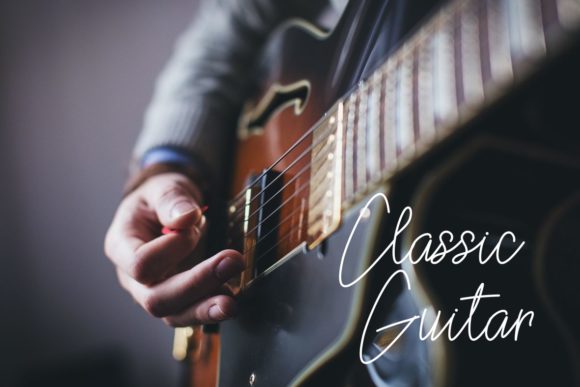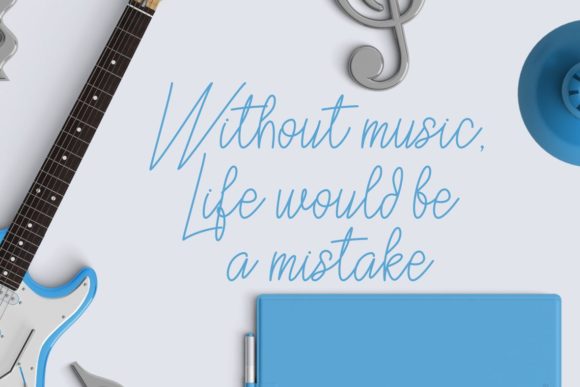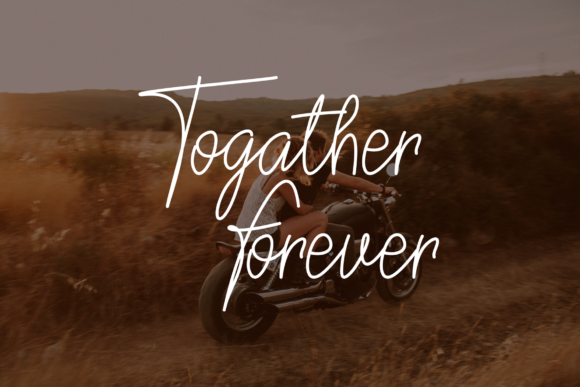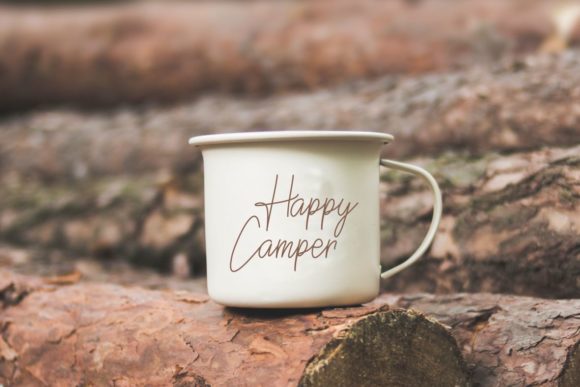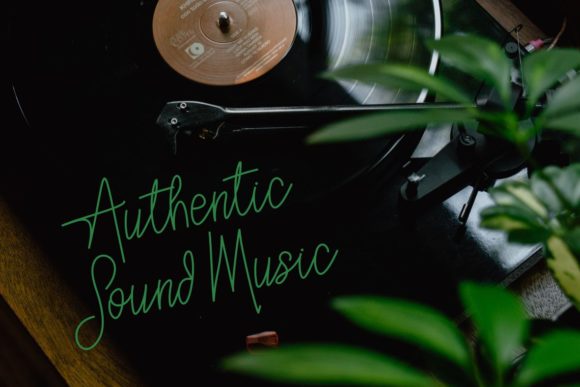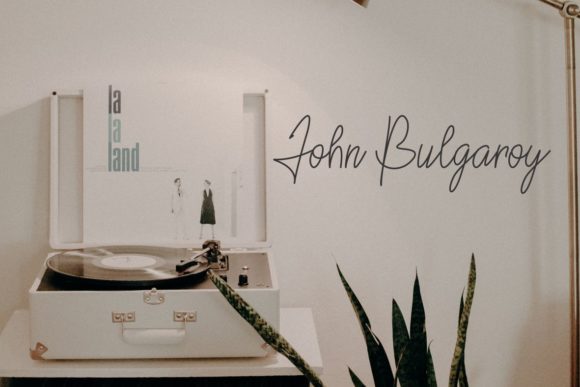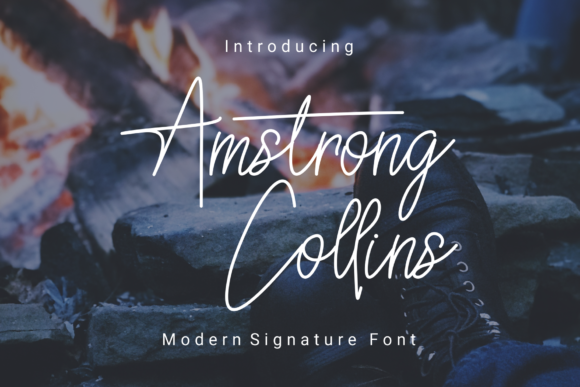
Introducing Armstrong Collins Font: The Perfect Handwritten Touch for Your Designs
Are you a designer or crafter looking for a font that adds a touch of elegance and sophistication to your work? Look no further than the Armstrong Collins font. This beautiful, flowing, and delicate handwritten font is perfect for a variety of design projects, from wedding invitations and thank you cards to quotes, greeting cards, logos, and business cards.
The Characteristics of Armstrong Collins Font
Armstrong Collins font is a unique and stylish handwritten font that boasts a range of characteristics that make it perfect for designs that require a personal touch. Some of its key features include:
- Flowing and delicate: The font has a smooth, flowing quality that gives it a delicate and refined appearance.
- Handwritten feel: The font has a distinctly handwritten feel, making it perfect for designs that require a personal touch.
- Elegant and sophisticated: The font’s elegant and sophisticated appearance makes it perfect for designs that require a high level of refinement.
Uses for Armstrong Collins Font
Armstrong Collins font is a versatile font that can be used for a wide range of design projects. Some of the most popular uses for this font include:
- Wedding invitations: The font’s elegant and sophisticated appearance makes it perfect for wedding invitations and other wedding-related design projects.
- Thank you cards: The font’s flowing and delicate quality makes it perfect for thank you cards and other greeting cards.
- Quotes: The font’s handwritten feel makes it perfect for quotes and other inspirational designs.
- Greeting cards: The font’s elegant and sophisticated appearance makes it perfect for greeting cards of all kinds.
- Logos: The font’s unique and stylish appearance makes it perfect for logos and other branding design projects.
- Business cards: The font’s professional and refined appearance makes it perfect for business cards and other business-related design projects.
Why Choose Armstrong Collins Font?
There are many reasons why designers and crafters choose Armstrong Collins font for their design projects. Some of the most compelling reasons include:
- Unique and stylish: The font’s unique and stylish appearance sets it apart from other fonts and makes it perfect for designers who want to create something truly special.
- Easy to read: The font’s clear and refined appearance makes it easy to read, even at small sizes.
- Versatile: The font’s versatility makes it perfect for a wide range of design projects, from wedding invitations to logos and business cards.
- Elegant and sophisticated: The font’s elegant and sophisticated appearance makes it perfect for designs that require a high level of refinement.
Tips for Using Armstrong Collins Font
To get the most out of Armstrong Collins font, here are a few tips to keep in mind:
- Use it sparingly: Because of its elegant and sophisticated appearance, it’s best to use Armstrong Collins font sparingly to avoid overwhelming the design.
- Pair it with other fonts: Armstrong Collins font pairs well with other fonts, so don’t be afraid to experiment with different font combinations.
- Experiment with sizes: The font’s clear and refined appearance makes it easy to read at a variety of sizes, so don’t be afraid to experiment with different sizes to find the one that works best for your design.
| Author | MualanaDesign |
Armstrong Collins font is a beautiful, flowing, and delicate handwritten font that is perfect for designers and crafters who want to add a touch of elegance and sophistication to their work. With its unique and stylish appearance, ease of use, and versatility, it’s no wonder that this font is becoming increasingly popular among designers and crafters. Whether you’re creating wedding invitations, thank you cards, quotes, greeting cards, logos, or business cards, Armstrong Collins font is sure to make your designs stand out.